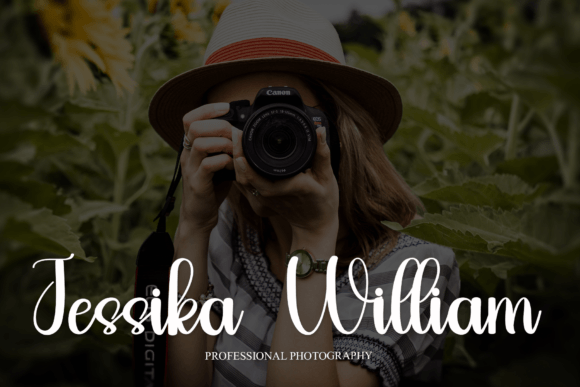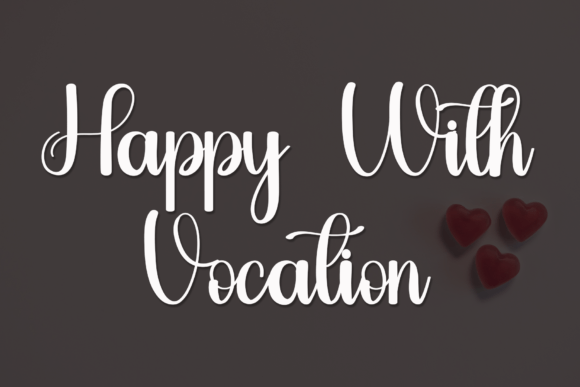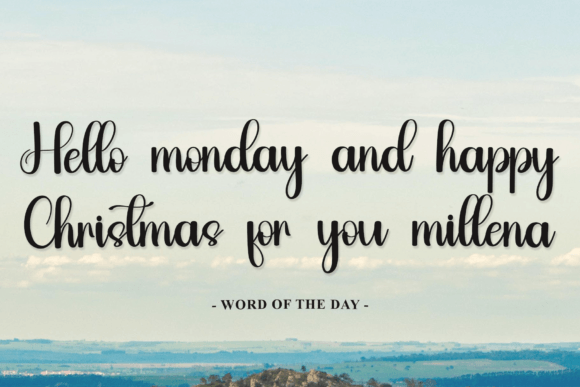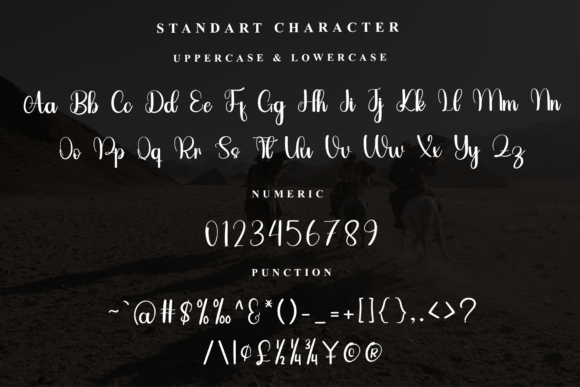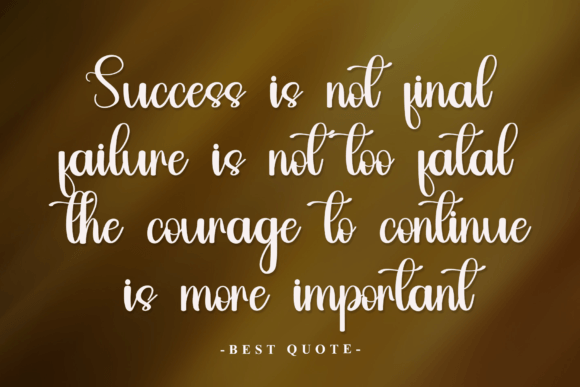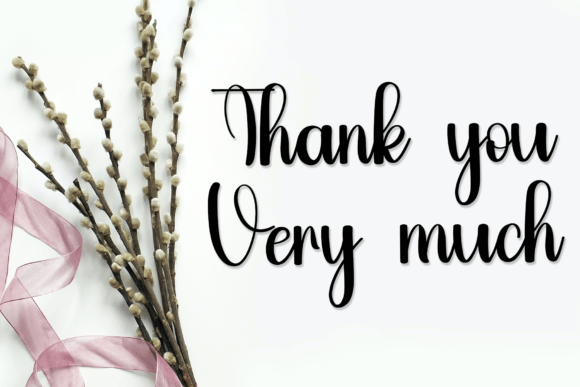
Discover the Charm of Angela Font: Elevate Your Designs with a Touch of Fresh Elegance
In the world of typography, few fonts manage to capture the essence of freshness and casual elegance as effortlessly as Angela Font. This charming handwritten font has been making waves among designers and crafters alike, and for good reason. Angela’s fluid strokes and organic lines exude a laid-back vibe that is perfect for a wide range of design projects. Whether you’re working on branding, invitations, social media graphics, or any other creative endeavor, Angela Font is sure to add a touch of warmth and personality to your work.
The Unique Characteristics of Angela Font
So, what sets Angela Font apart from other fonts in the market? For starters, its handwritten nature gives it a distinctly personal and approachable feel. The fluidity of its strokes and the organic irregularities in its lines make it look like it was penned by hand, rather than being a product of digital creation. This lends a sense of authenticity and warmth to any design it’s used in.
Another notable feature of Angela Font is its versatility. Despite its casual and laid-back appearance, it can be used in a variety of contexts, from formal to informal. For instance, it can add a touch of elegance to wedding invitations or serve as a friendly voice for a brand’s social media posts. This versatility makes Angela Font a valuable asset in any designer’s toolkit.
Applications of Angela Font
The applications of Angela Font are vast and varied. Here are a few examples of how you can use this beautiful font in your designs:
- Branding: Use Angela Font to give your brand a friendly and approachable personality. Its casual elegance can help you connect with your audience on a more personal level.
- Invitations: Whether it’s a wedding, birthday party, or baby shower, Angela Font can add a touch of warmth and elegance to your invitations.
- Social Media Graphics: Stand out on social media with graphics that incorporate Angela Font. Its laid-back vibe is perfect for creating engaging and relatable content.
- Packaging: Add a personal touch to your product packaging with Angela Font. It can make your products feel more bespoke and customer-centric.
Tips for Using Angela Font Effectively
To get the most out of Angela Font, here are a few tips to keep in mind:
- Pair it with Other Fonts: Angela Font works beautifully when paired with other fonts, especially sans-serifs and geometric fonts. Experiment with different combinations to find the perfect balance for your design.
- Play with Sizes: Don’t be afraid to vary the size of your text when using Angela Font. Larger text can be used for headings, while smaller text can be used for body content.
- Adjust the Color: Angela Font looks great in a variety of colors, but it’s especially striking in softer, pastel shades. Consider the mood of your design when choosing a color for your text.
Angela Font is more than just a font – it’s a design element that can elevate your projects with its unique blend of freshness and elegance. Its versatility, charm, and wide range of applications make it an excellent choice for designers and crafters looking to add a personal touch to their work. Whether you’re creating branding materials, invitations, social media graphics, or anything in between, Angela Font is sure to bring a touch of warmth and personality to your designs.